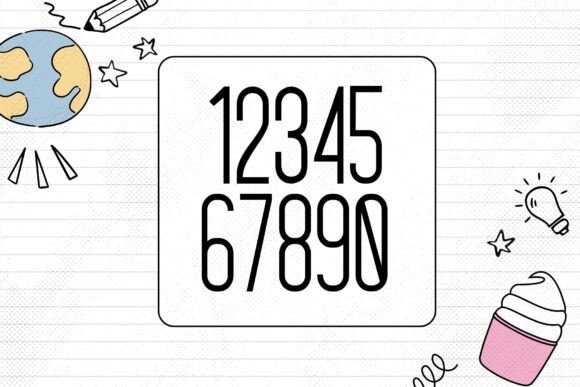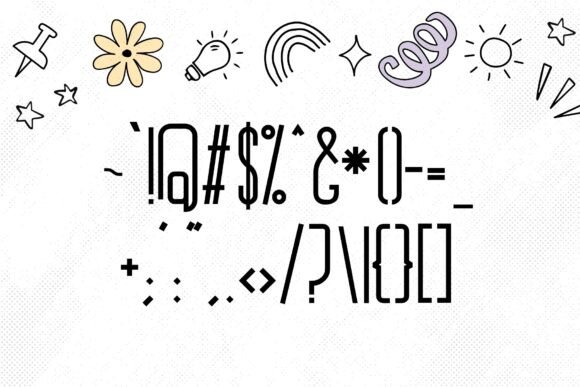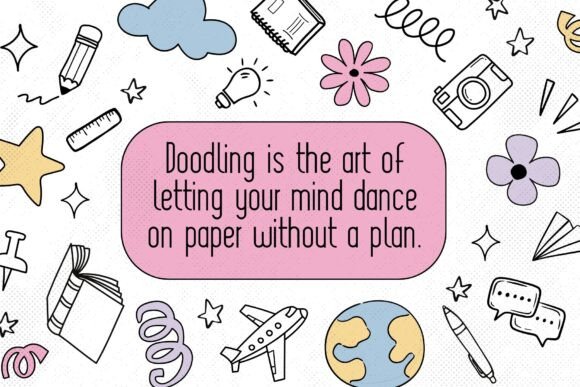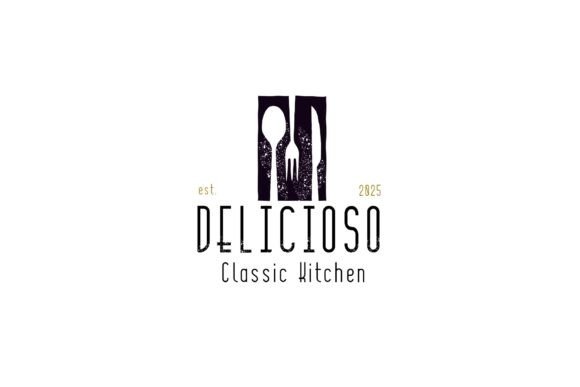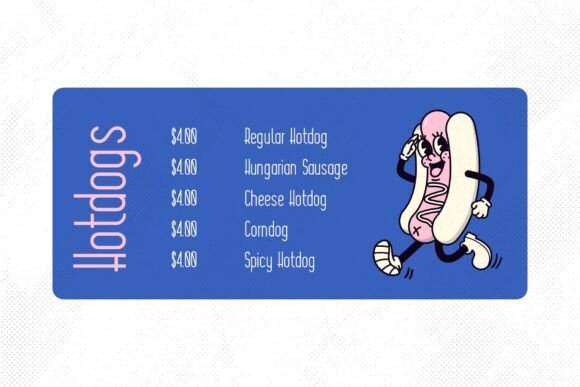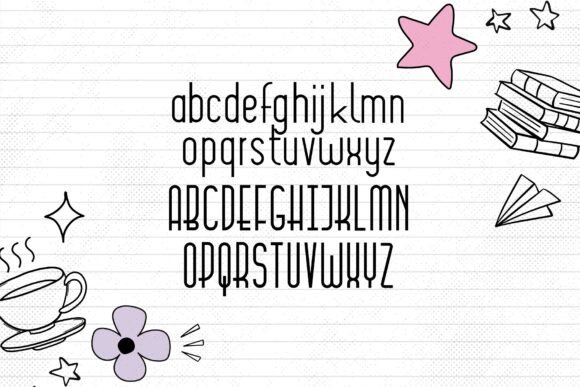
Introduction to Doodle Daze Font
Doodle Daze is a sleek and stylish typeface inspired by the 1950s American diner aesthetic.
With its tall, slim letterforms and effortless retro charm, this font brings a touch of nostalgia and playfulness to any design Perfect for menus, signage, logos, branding, posters, and mid-century-inspired projects, Doodle Daze captures the essence of vintage diners, soda fountains, and roadside cafés.
Key Features of Doodle Daze Font
Why Choose Doodle Daze Font?